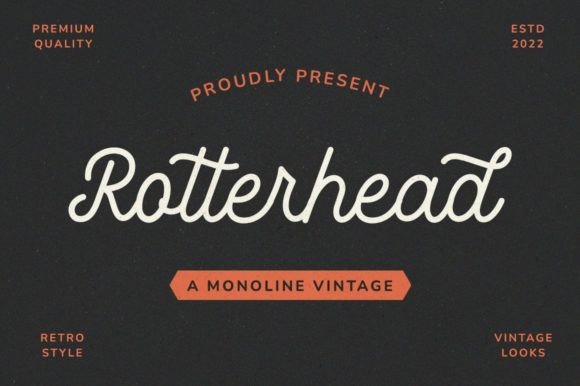
Sail away into the captivating world of Rotterhead, a striking monoline script font with a captivating vintage charm. Immerse yourself in its timeless beauty, crafted by Seagulls Creative. Prepare to be mesmerized by its intricate details, reminiscent of elegantly penned manuscripts from a bygone era. Prepare to captivate your audience, whether in branding projects, logo designs, labels, or merchandise.
Embark on a creative journey as Rotterhead adorns your social media posts, posters, and magazines, leaving an unforgettable impression. Picture your words dancing gracefully across the screen, captivating your readers with their timeless elegance. Create visually stunning advertisements that command attention and make your products shine. Enchant your product packaging with Rotterhead's vintage allure, transforming them into treasured keepsakes.
With Rotterhead's PUA encoding, unleash your creativity effortlessly, accessing an array of glyphs and swashes with remarkable ease. Let your designs soar, embracing Rotterhead's versatility, seamlessly flowing across diverse applications. Elevate your typography, transform your visuals, and watch as Rotterhead weaves its magic, transforming the ordinary into the extraordinary. Dive into the realm of Rotterhead, where beauty meets functionality, and see your creative visions come to life!